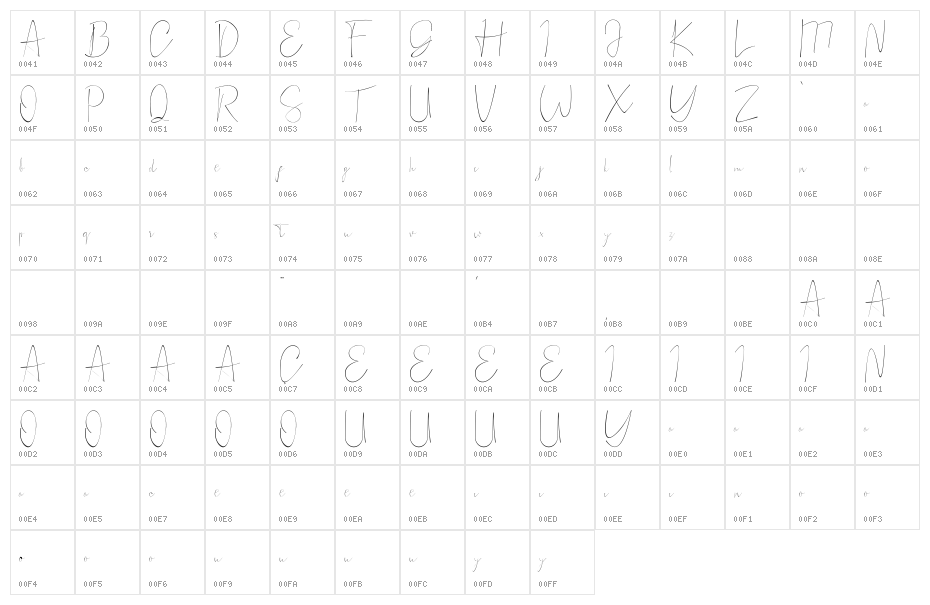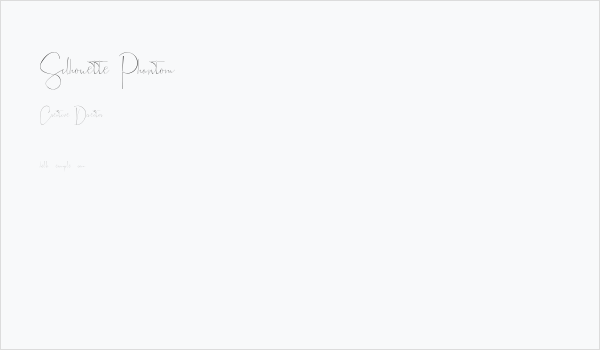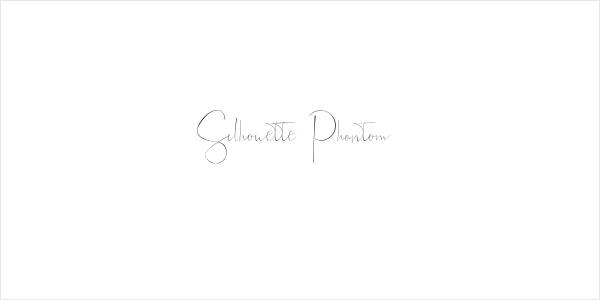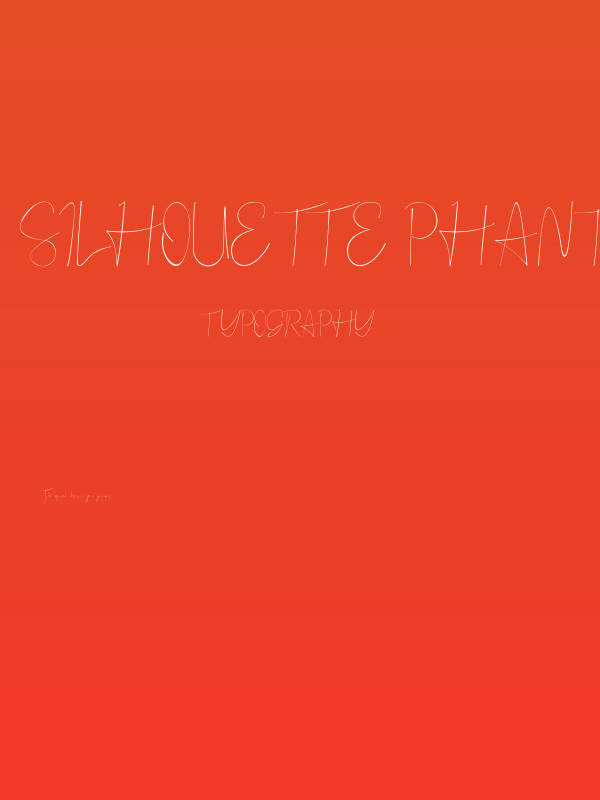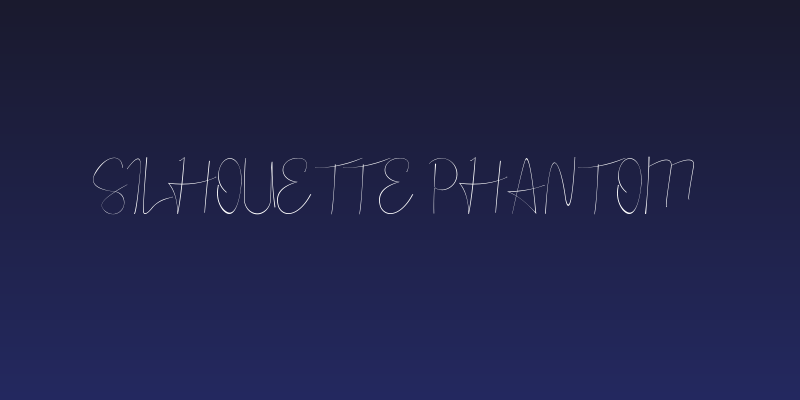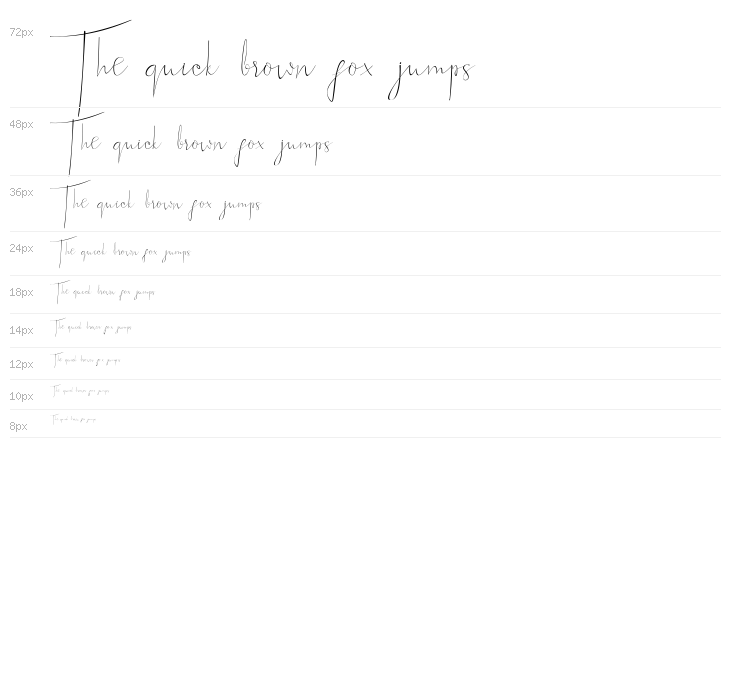
Silhouette Phantom Font
Silhouette Phantom Description
This font features a delicate and elegant script style, characterized by its thin, flowing lines and graceful curves. The uppercase letters are tall and slender, with a slight slant that adds a sense of movement and fluidity. The lowercase letters maintain a consistent style, with loops and swirls that enhance the overall aesthetic. The font's airy and light appearance makes it suitable for projects that require a touch of sophistication and elegance. Its unique style is both modern and timeless, making it versatile for various design applications.
Silhouette Phantom
| Overall Style | Elegant and sophisticated |
| Proposed Projects | Ideal for wedding invitations, elegant branding, greeting cards, and high-end product packaging. |